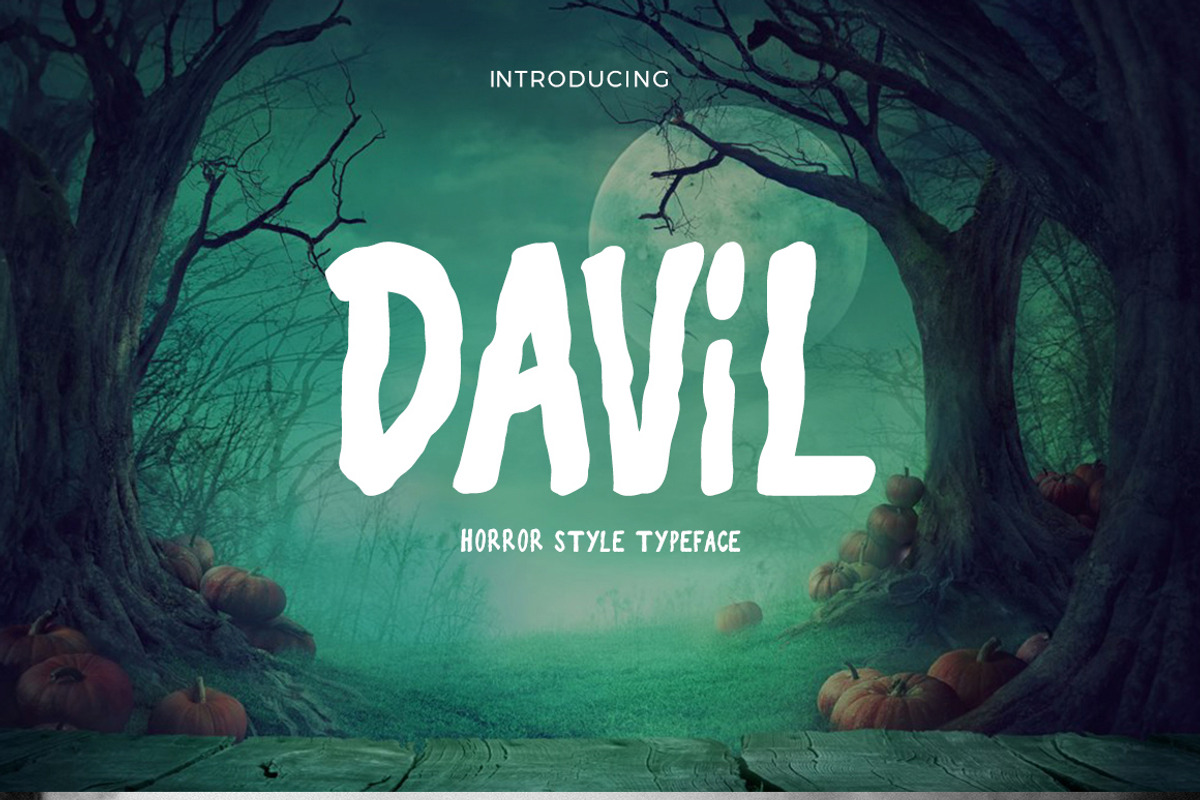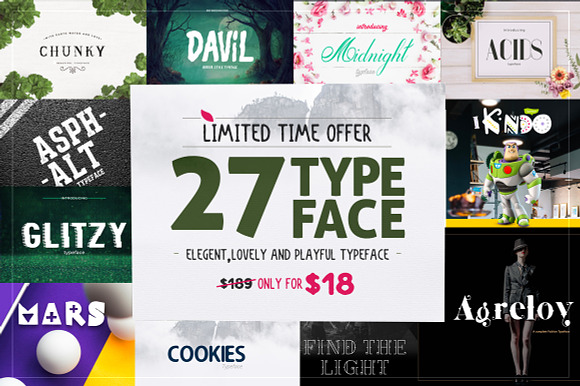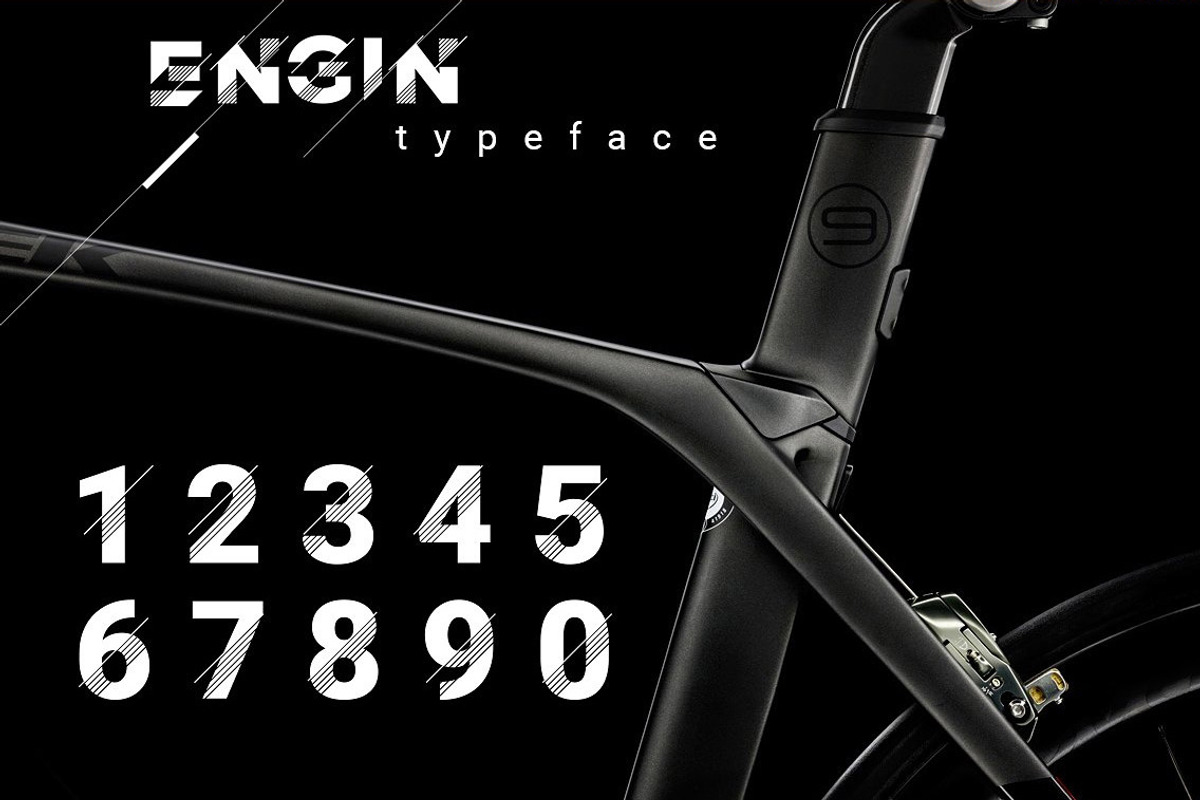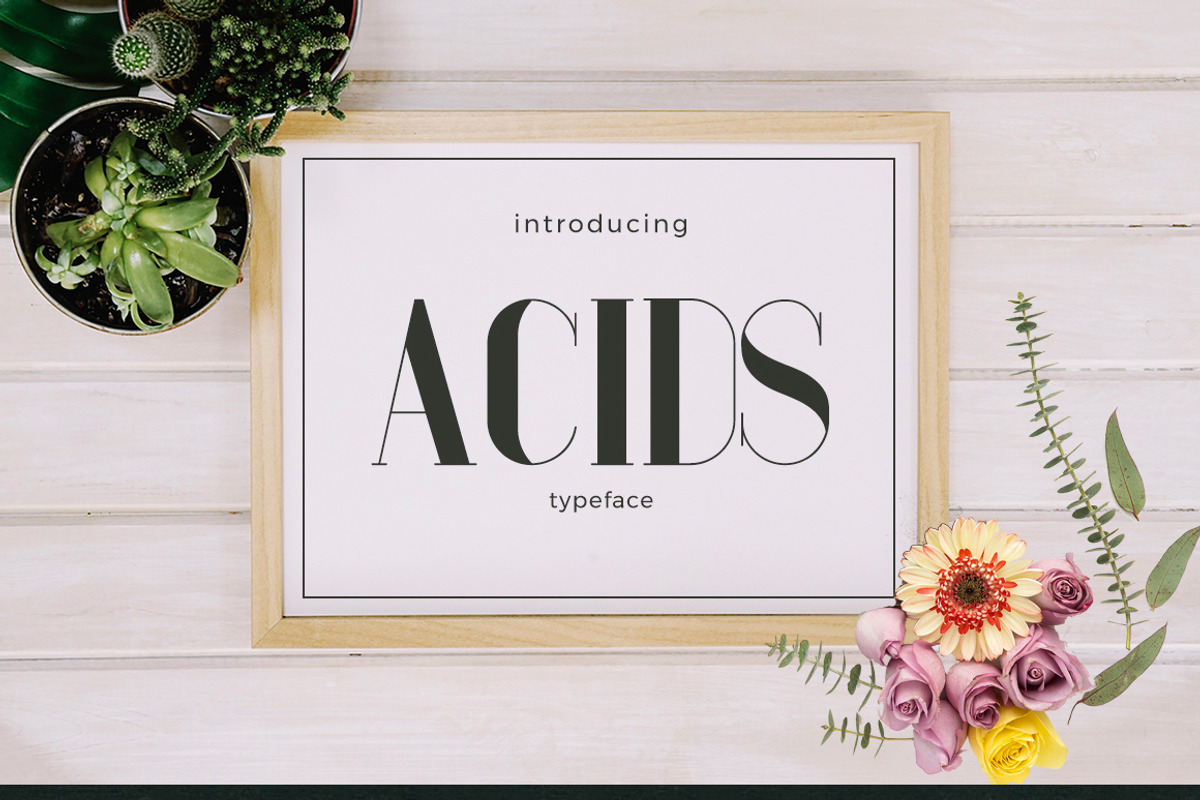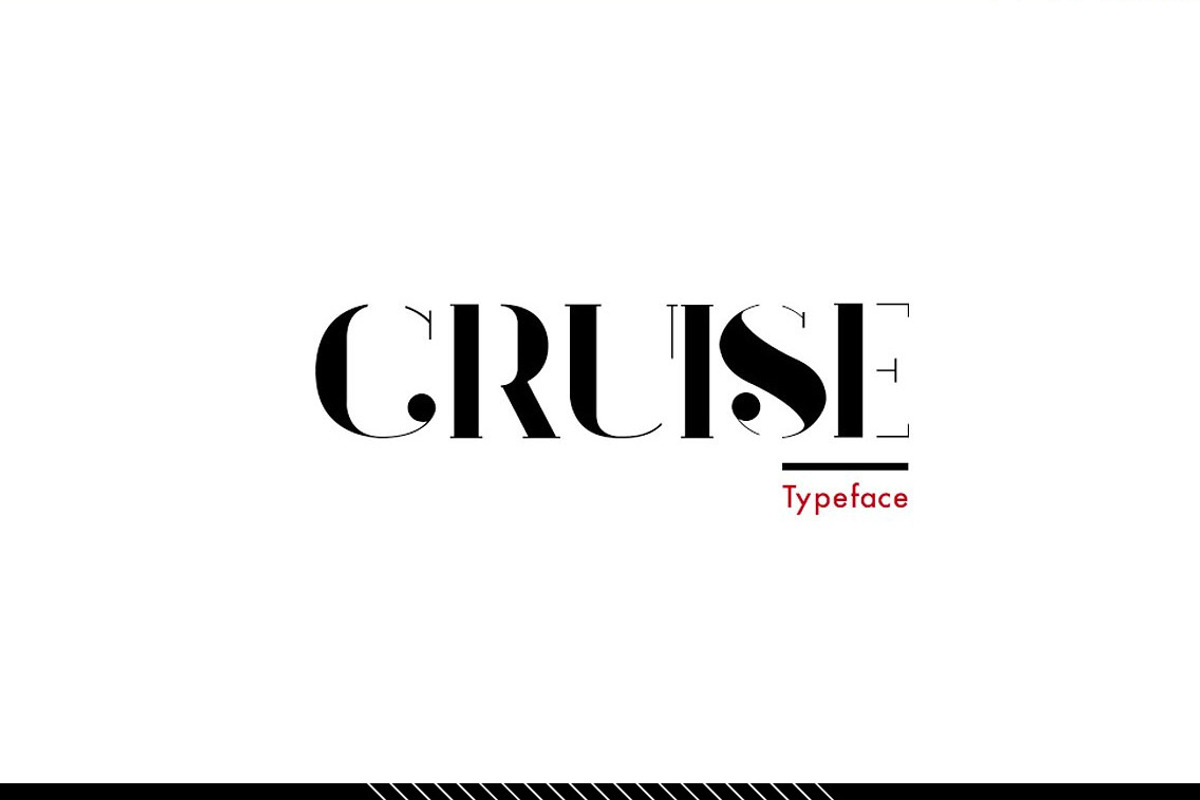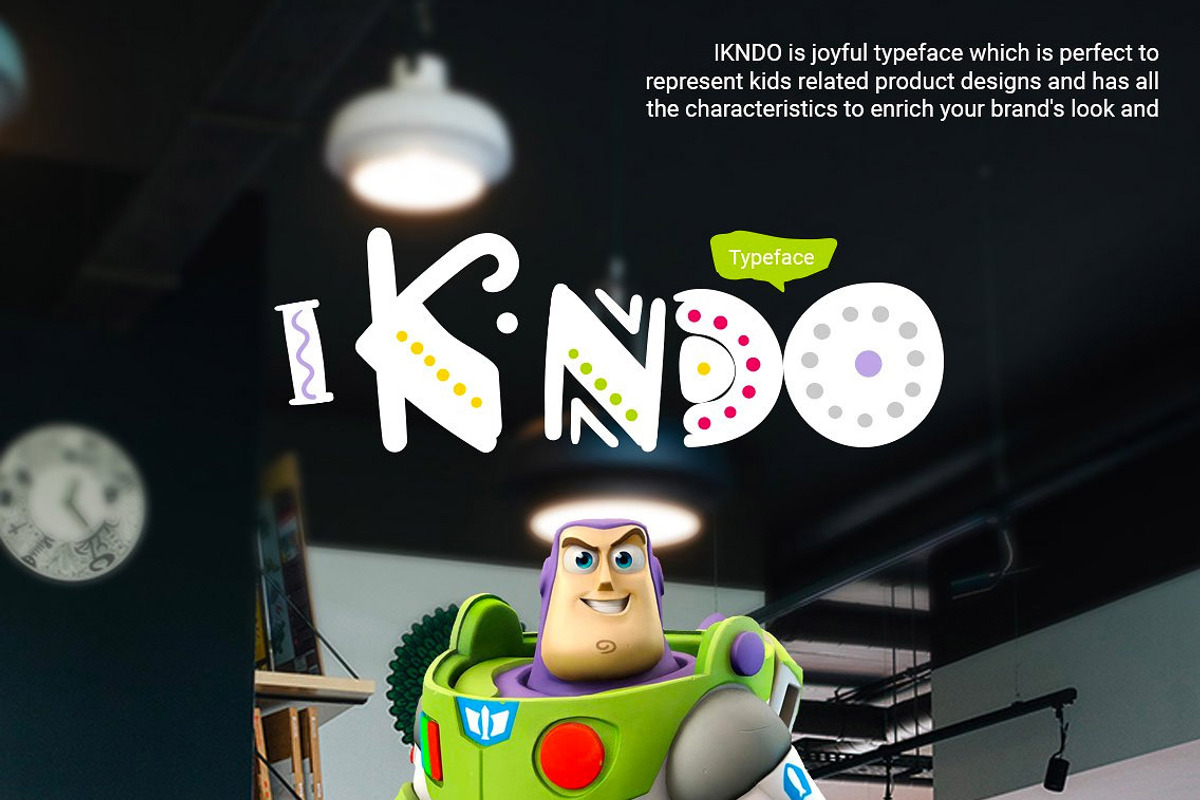
Best Typefaces Fonts
Why Best Typefaces Fonts is worth a look
Best Typefaces Fonts by DuoFankaar fits naturally into Branding, posters, packaging, typography.